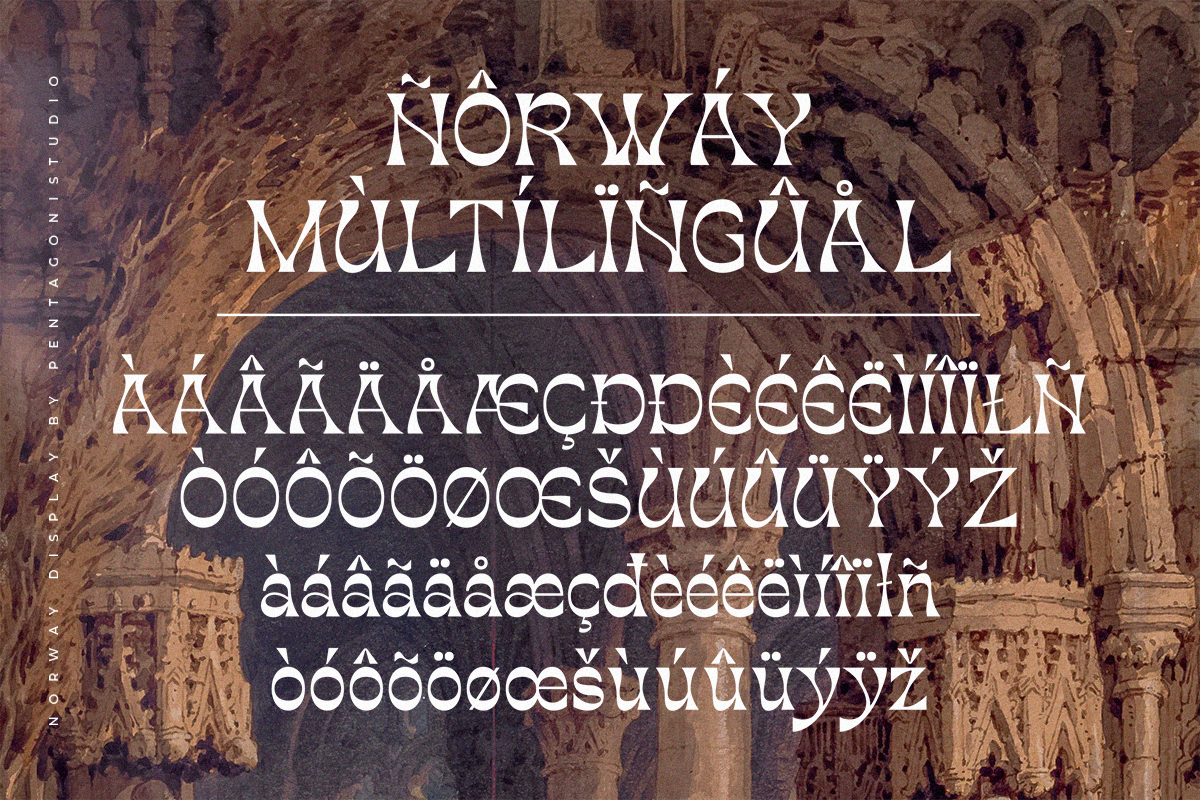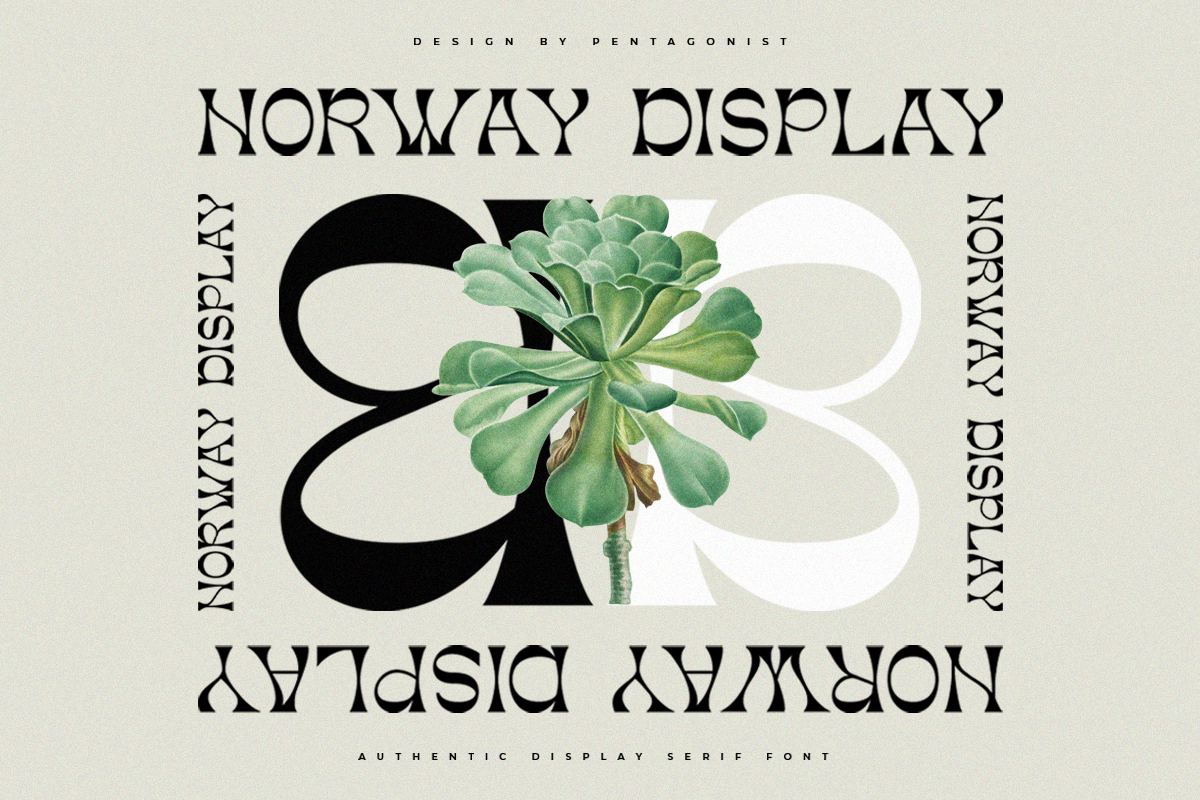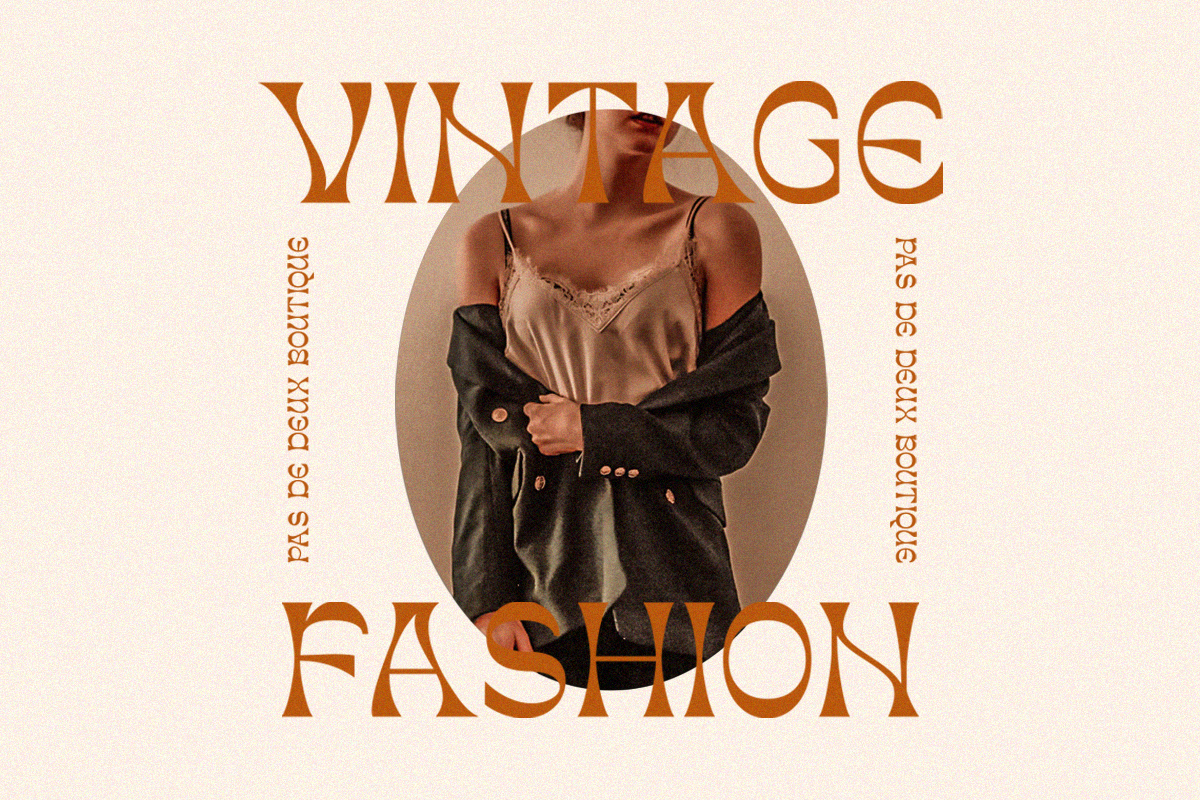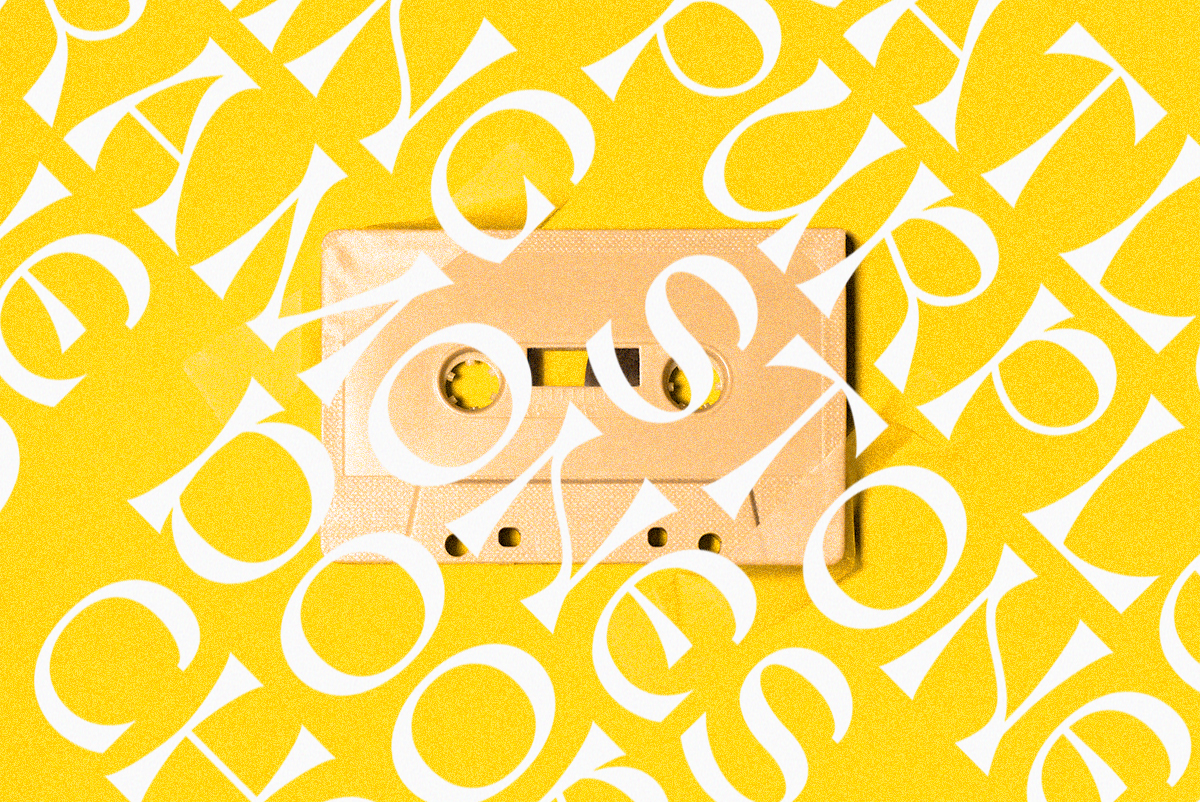
Norway Font
Norway Display Font
This Is Authentic Display Font Inspired By Classic Characters. It will be perfectly used for Branding, Logo Design, Lettering, Logotype, Clothing, Poster, magazine, packaging, posters, shopping bags, t-shirts, book covers, photography, special events and other design project.